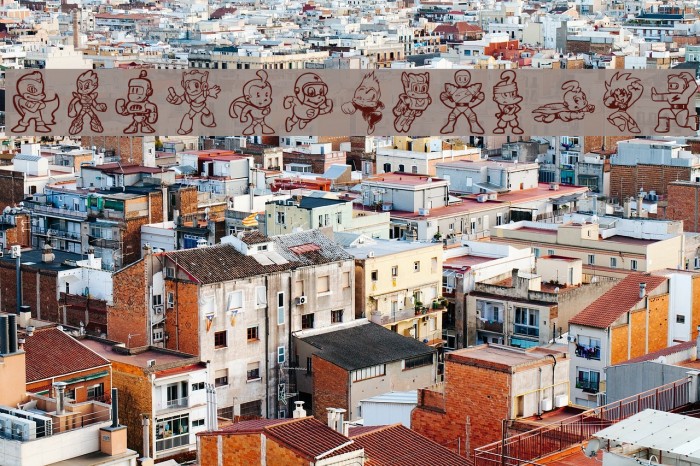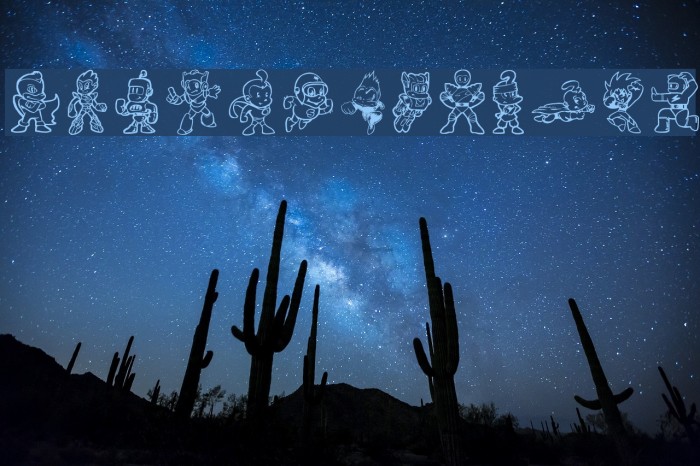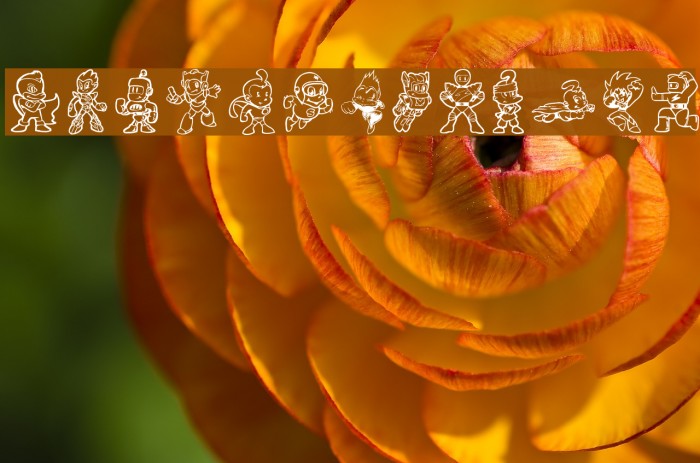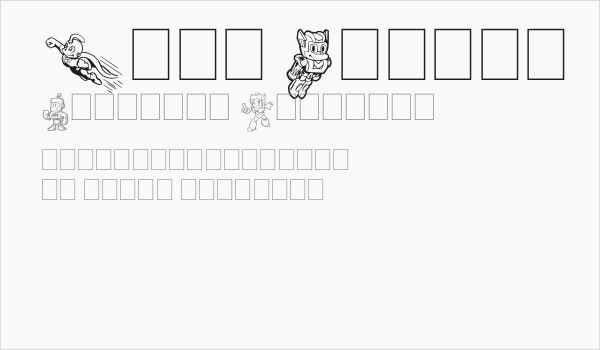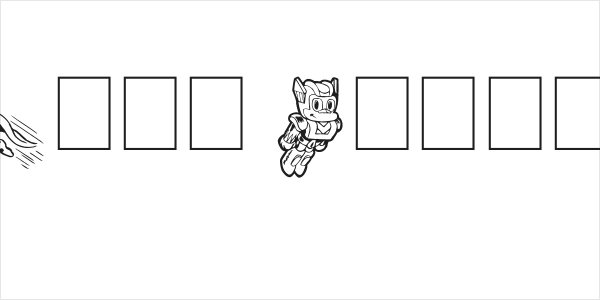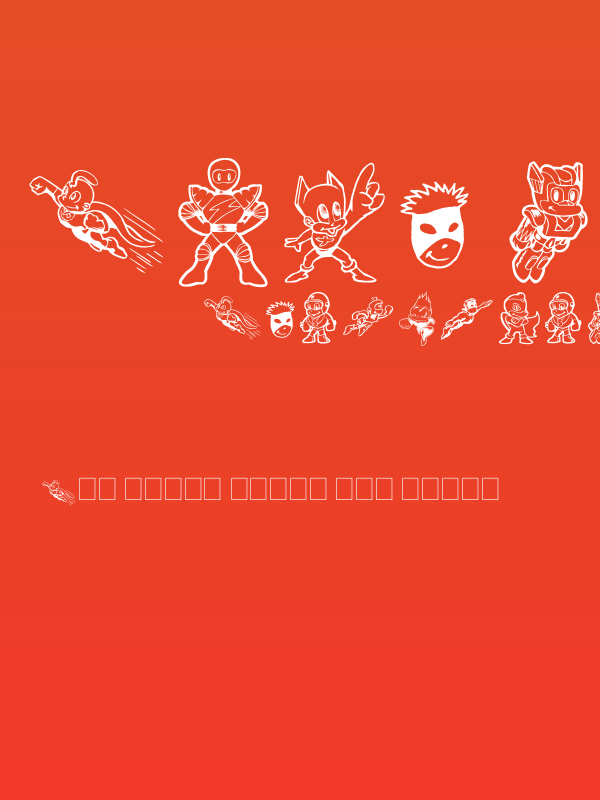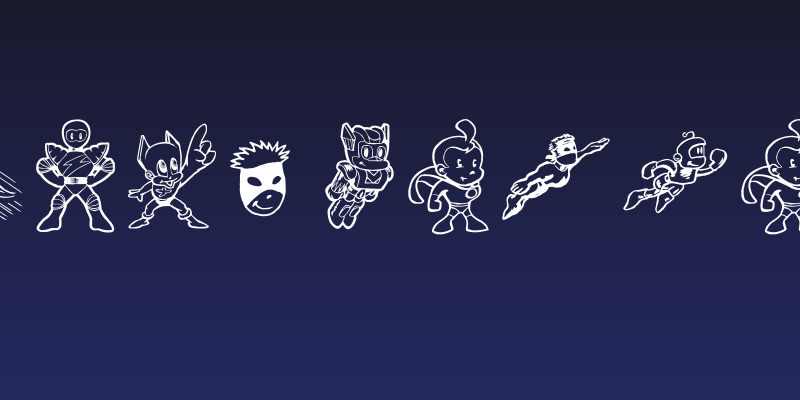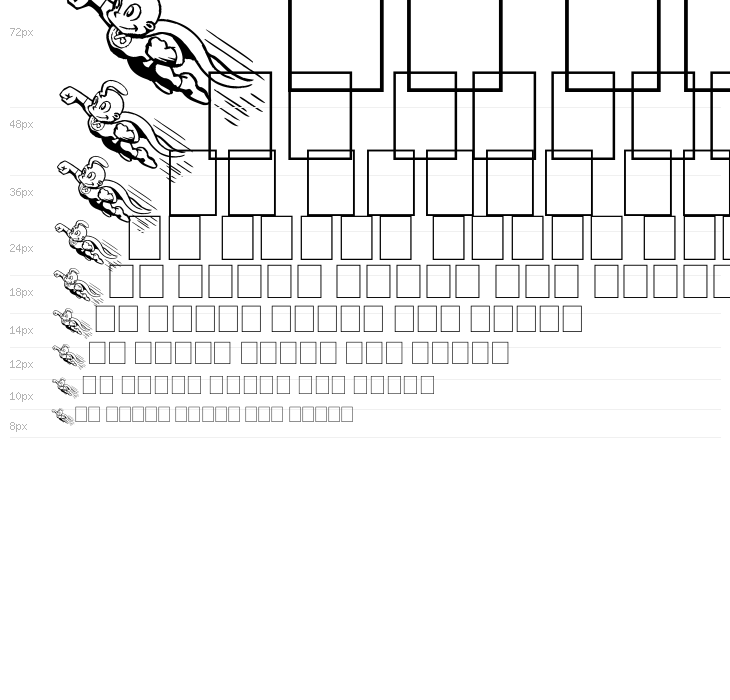
Tiny Heroes Font
Tiny Heroes Description
A playful, decorative font where each character is represented by a unique cartoon superhero figure in a bold, outlined comic style. The glyphs are highly stylized, with exaggerated proportions and dynamic poses, making each letter or symbol visually distinct and expressive.
Overall StylePlayful, Comic, Decorative
Use CaseHeadlines, Logos, Posters, Themed graphics
Proposed ProjectsChildrenÒ€ℒs books, comic titles, party invitations, game interfaces, playful branding.